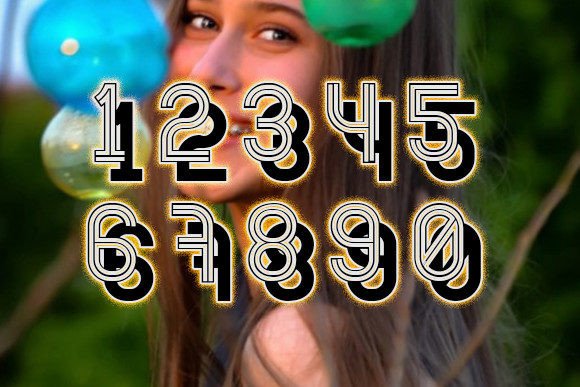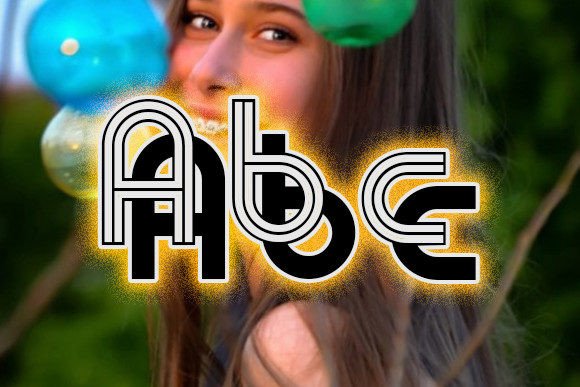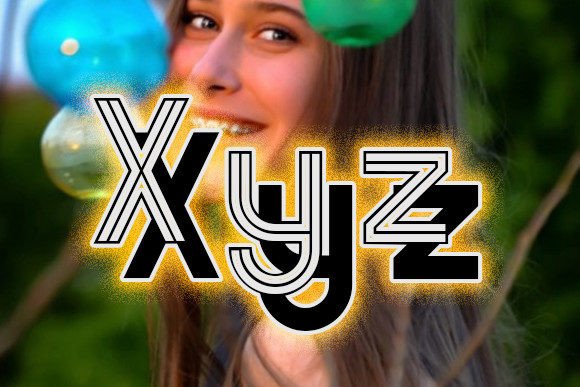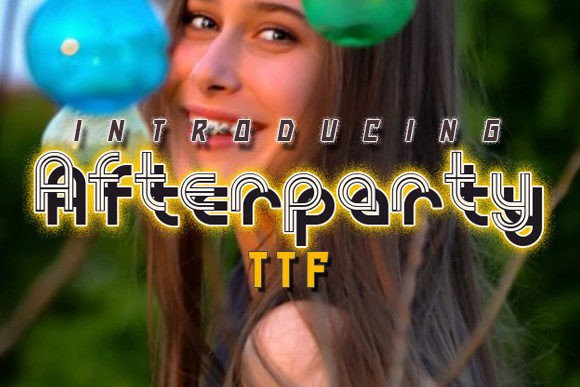
The Ultimate Guide to Afterparty Font: Elevate Your Designs with Retro-Futuristic Flair
I’ll never forget the design project that had me stuck in a font rut. I was working on a poster for a futuristic-themed party, and no matter how hard I tried, I just couldn’t find the perfect font. That was until I stumbled upon Afterparty Font. This stylish, retro-futuristic typeface has been a game-changer for my designs, and I’m excited to share its awesomeness with you! 🚀
- Unique, retro-futuristic aesthetic that’s perfect for posters, flyers, and headlines
- Highly legible, even at smaller font sizes ✅
- Extensive character set, including OpenType features and stylistic alternates
- Works beautifully with bold colors and neon accents
- Some users may find the font a bit too condensed for body text ⚠️
- Limited availability of Cyrillic and non-Latin scripts
The Story Behind Afterparty Font
Afterparty Font was designed by a team of creatives who wanted to capture the essence of retro-futurism in a modern, digital typeface. Inspired by classic sci-fi movies and video games, they crafted a font that’s both nostalgic and forward-thinking. The result is a unique, stylish font that’s perfect for designers, crafters, and creative hobbyists looking to add some extra flair to their projects.
| What type of projects is Afterparty Font best suited for? | Afterparty Font is perfect for posters, flyers, headlines, and any other design project that needs a touch of retro-futuristic flair. |
| Is Afterparty Font available in different weights and styles? | Currently, Afterparty Font is available in a single weight, but it does feature a range of stylistic alternates and glyphs to help you customize your designs. |